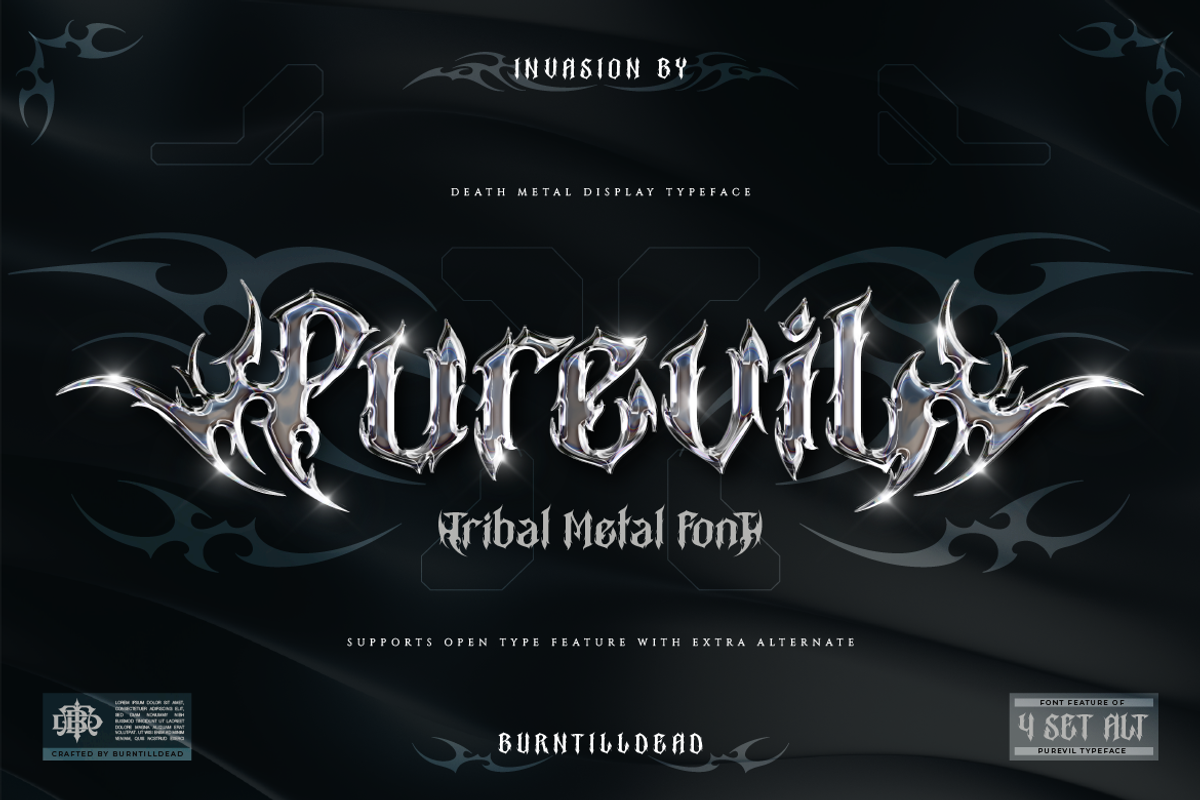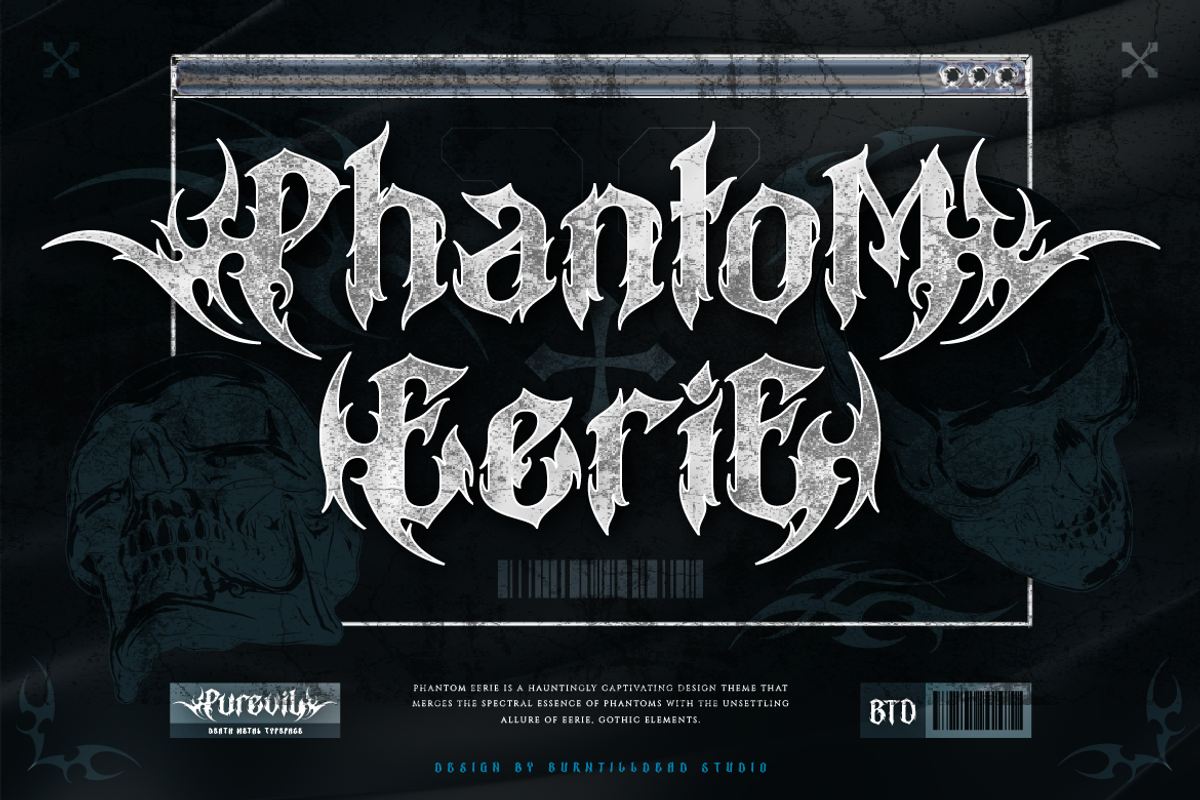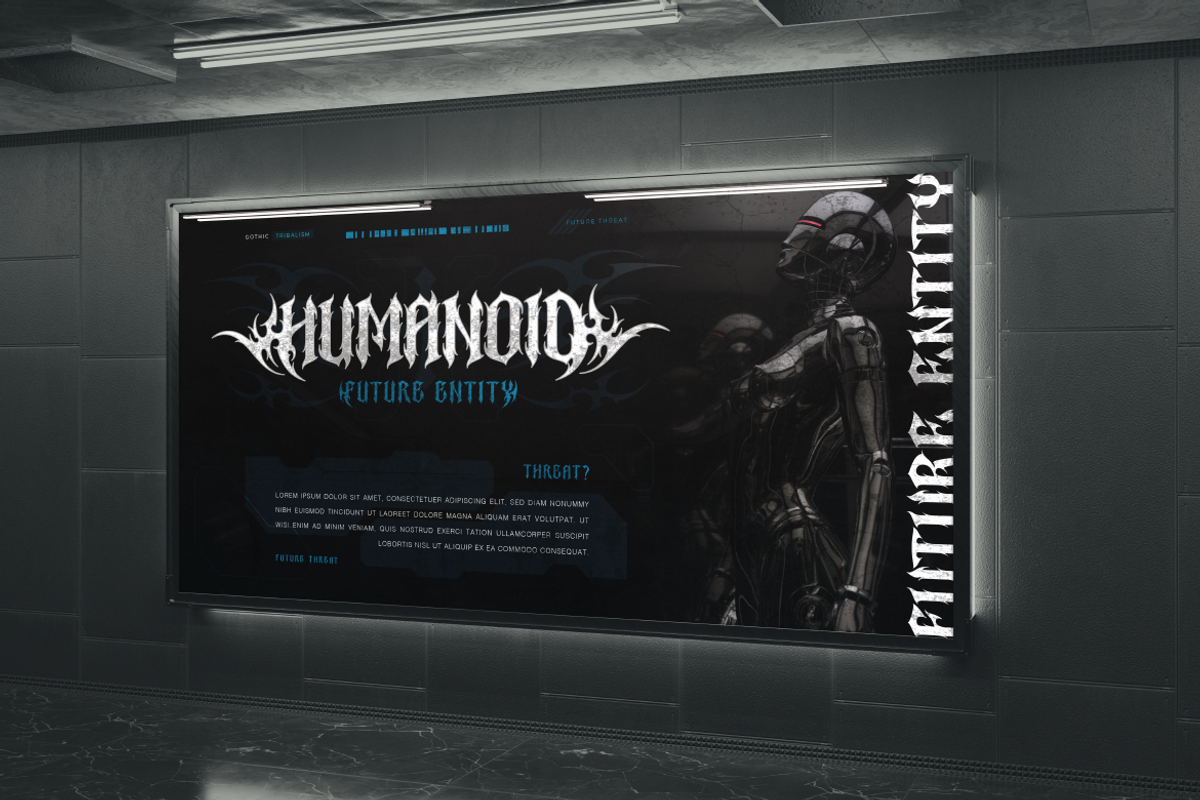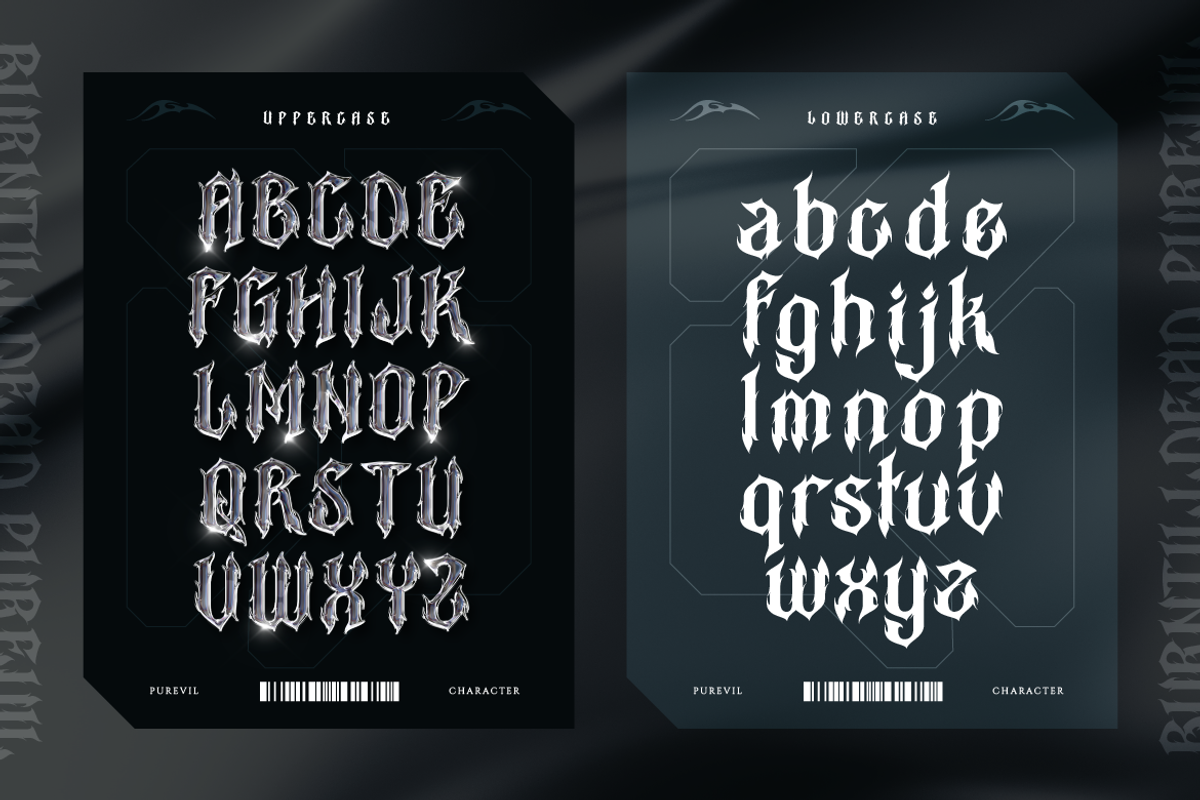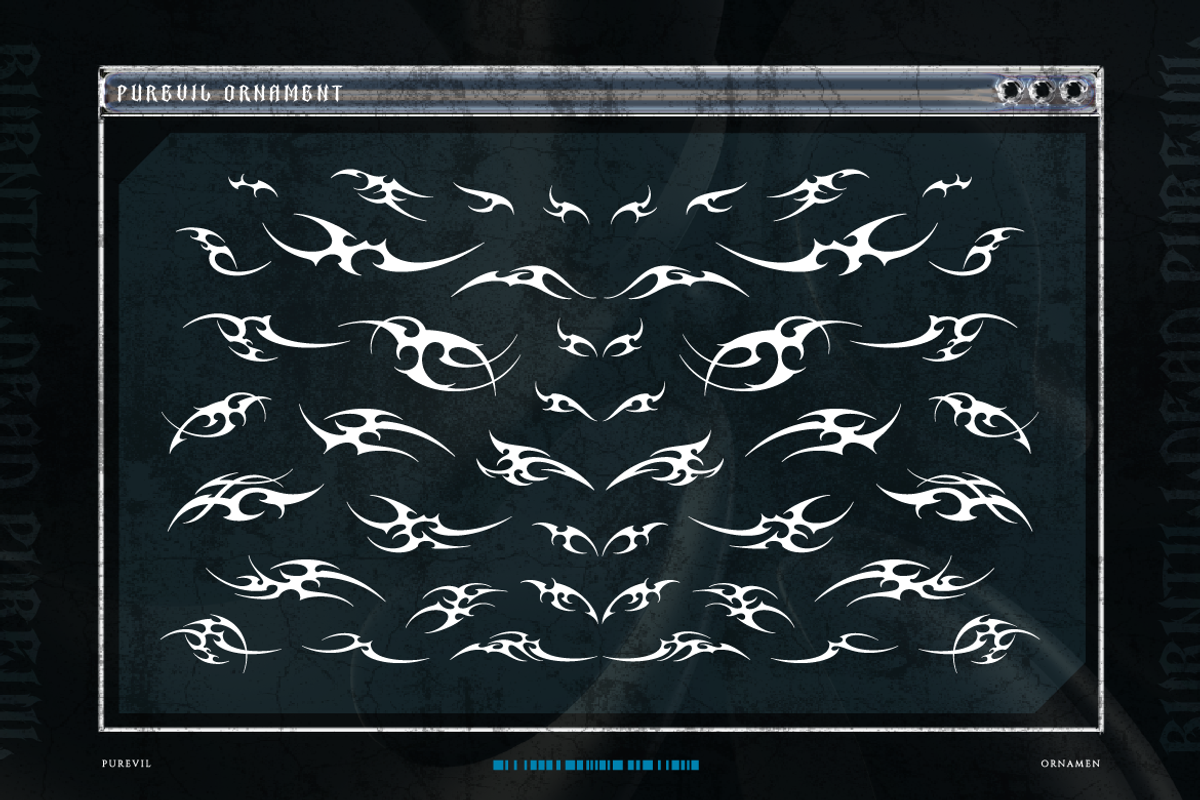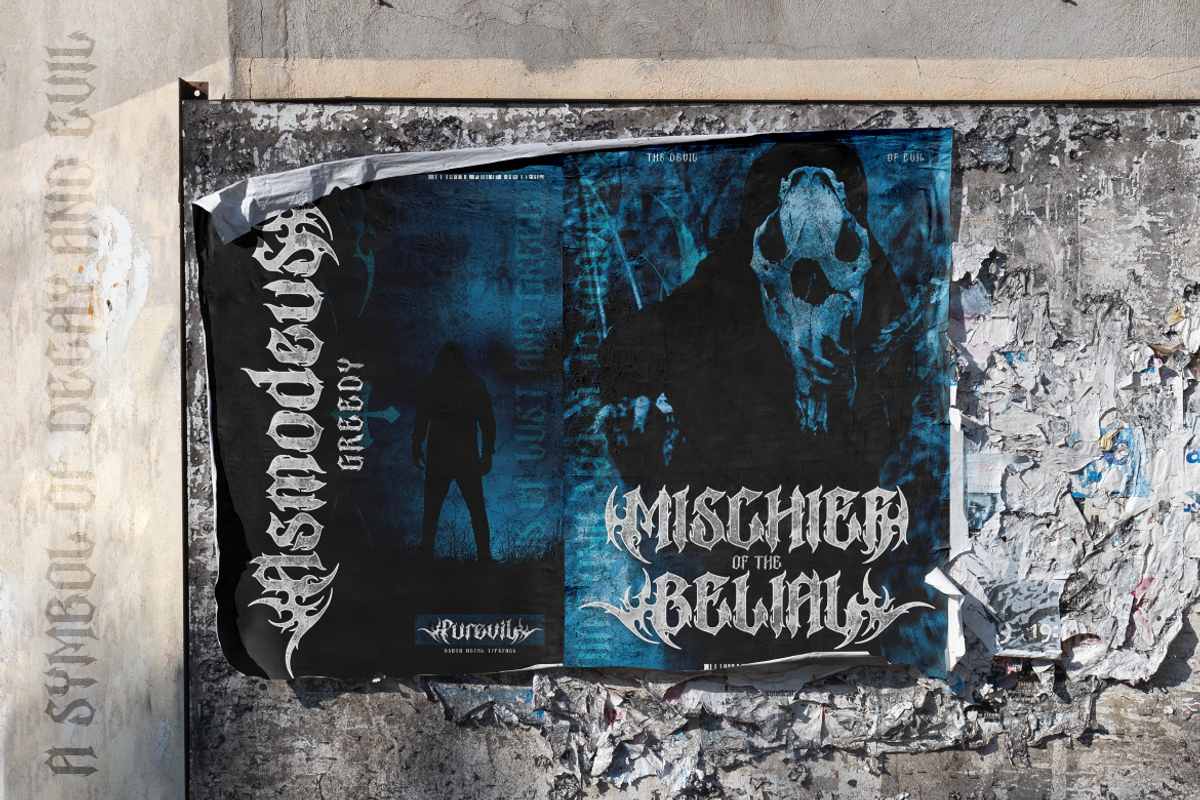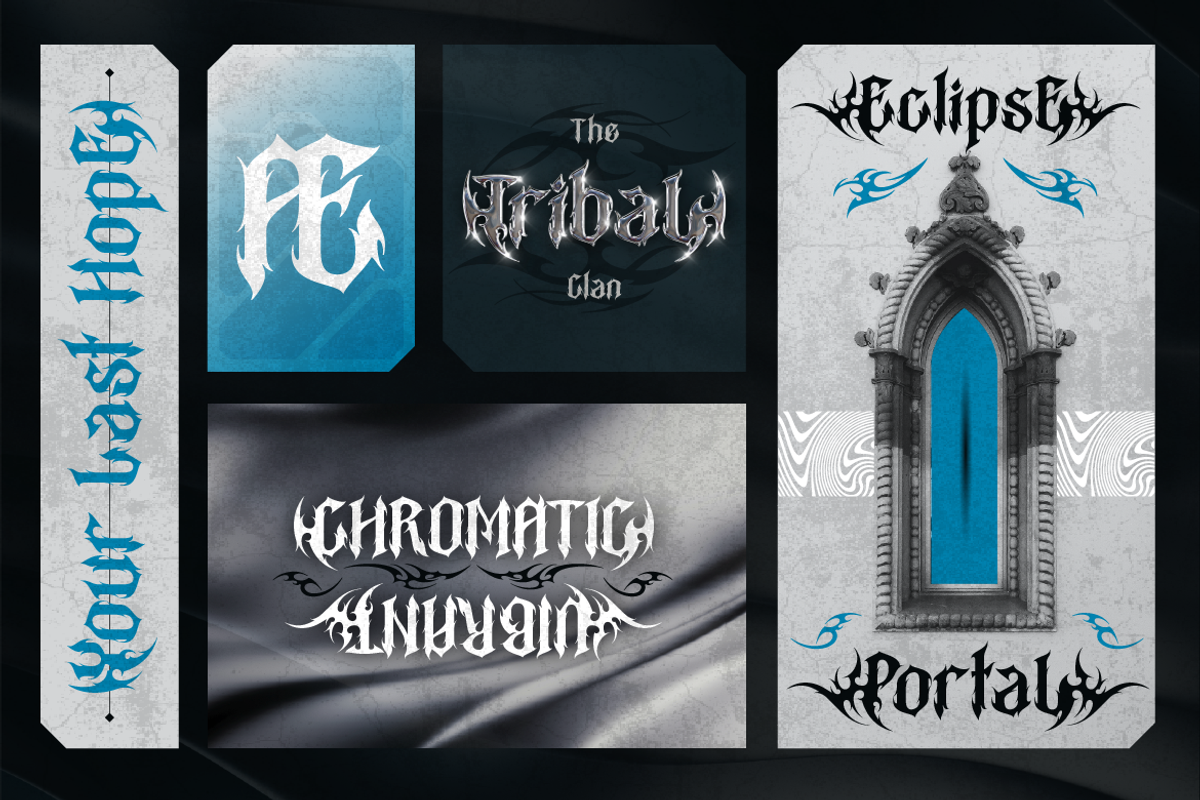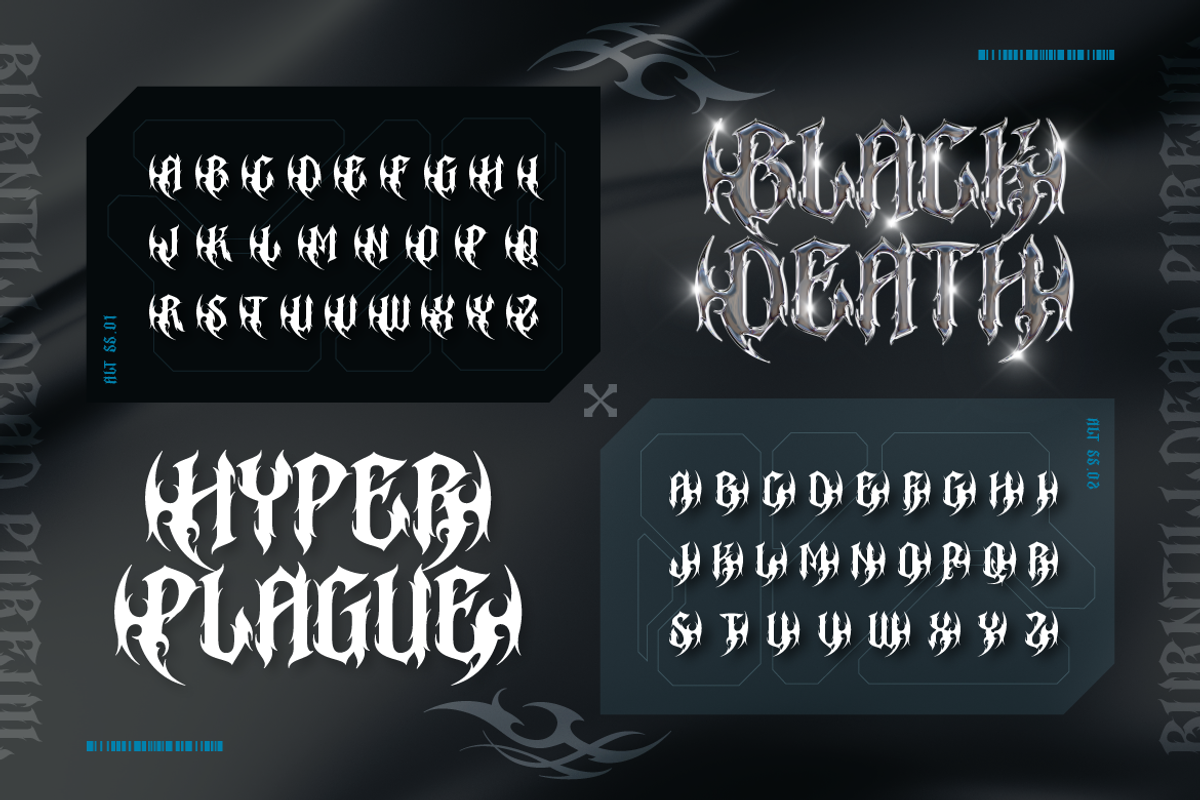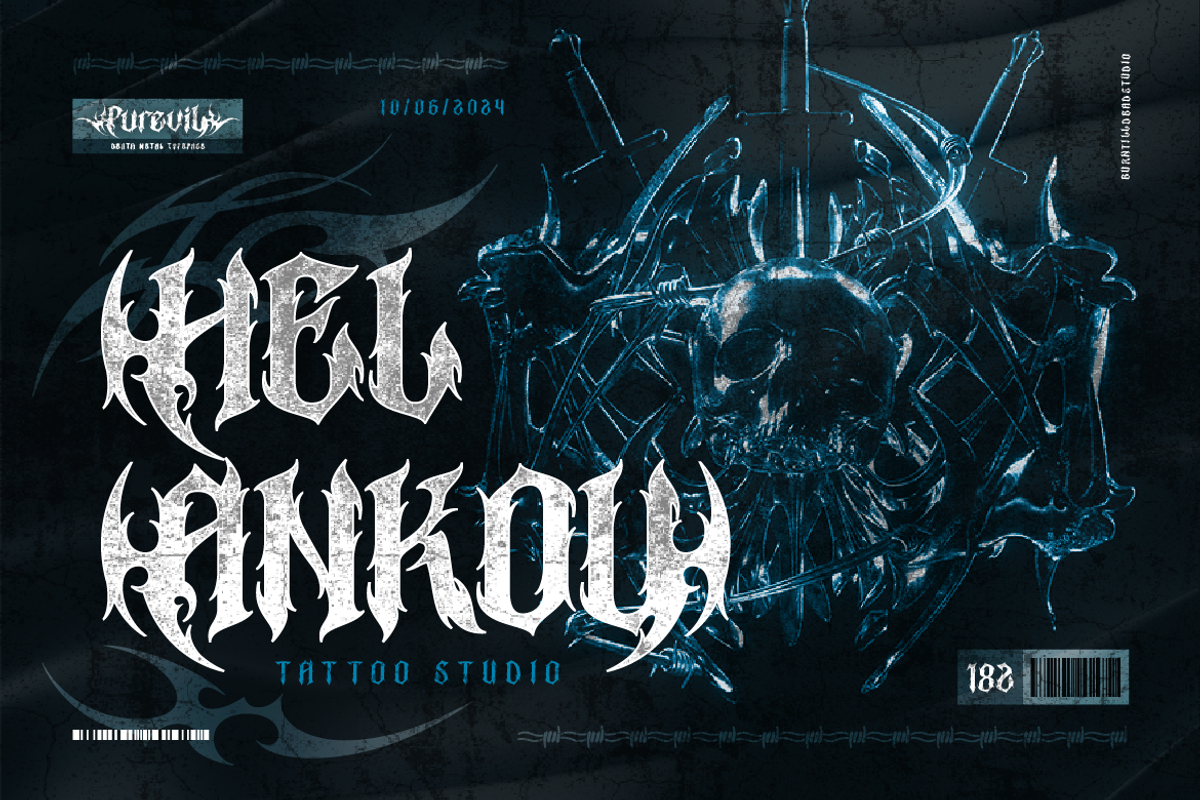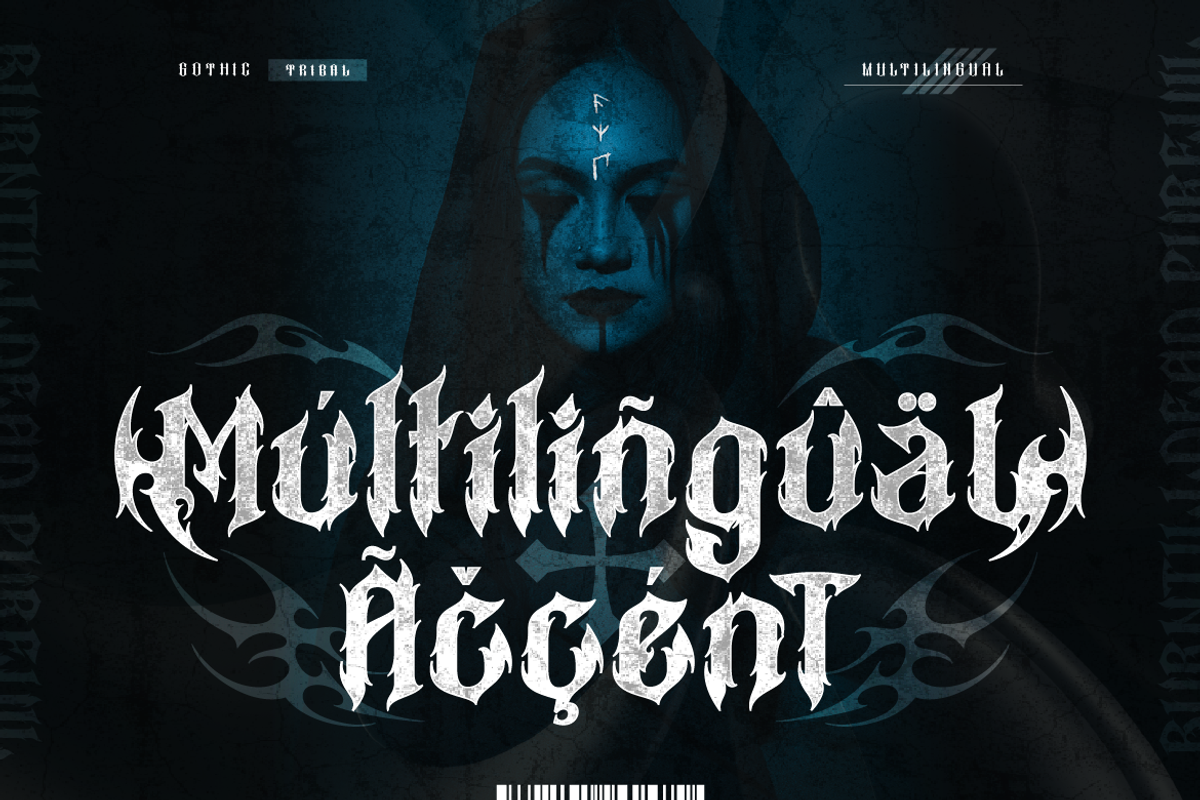
Purevil
Introducing Purevil, a tribal metal font that has bold letters but still looks modern with unique shape every each letter. Also this font include with ornament so perfect choice for those of you who are creating metal-themed designs such as album covers, metal band logos, music concert posters also game interface and many others. This tribal metal font can add extra punch to your design.
A - Z set (uppercase & lowercase)
Number
Alternate
Purevil Characters Map
** Bonus**: Ornament Purevil